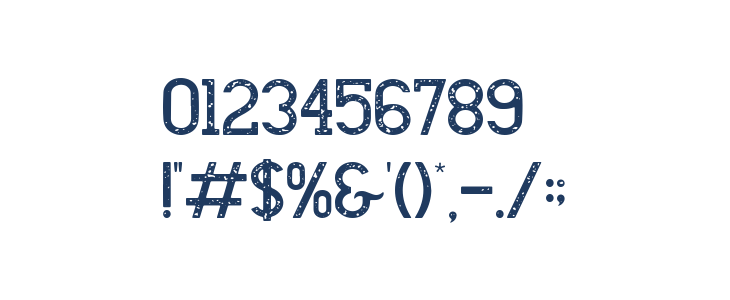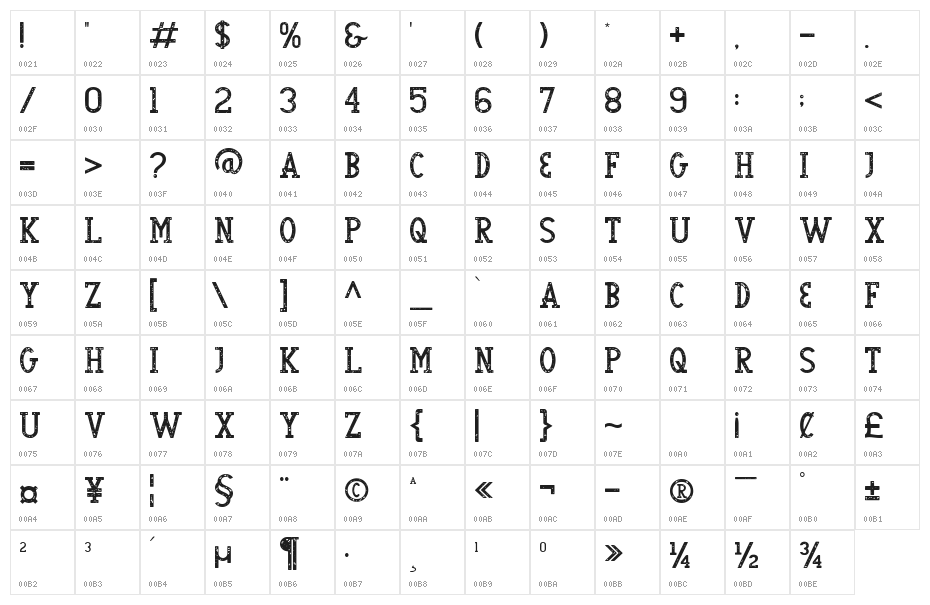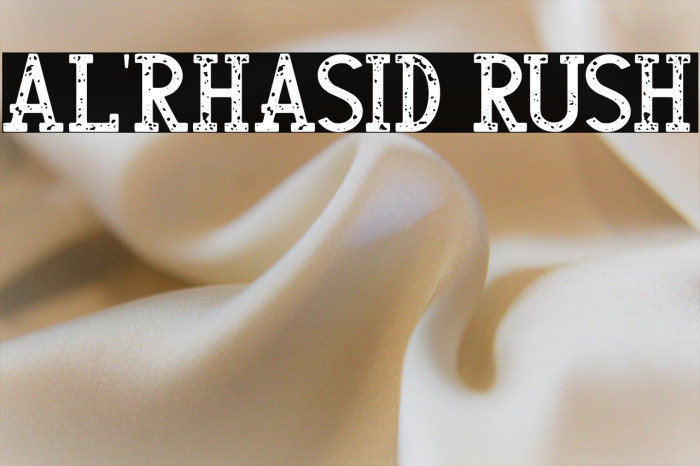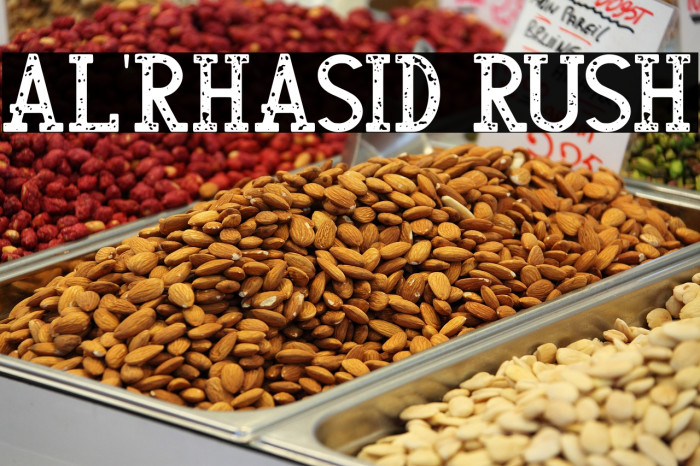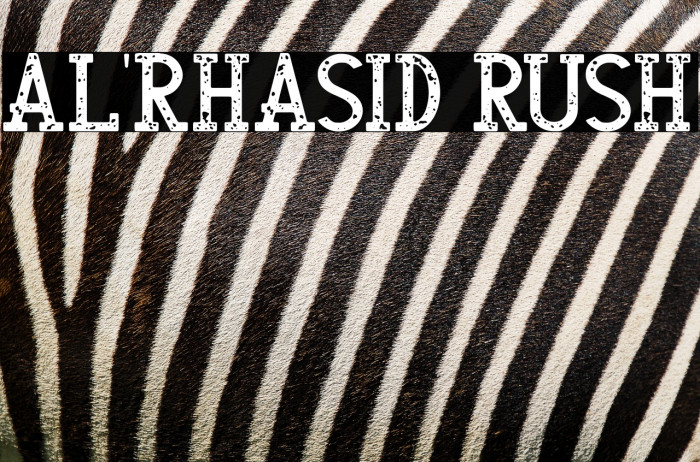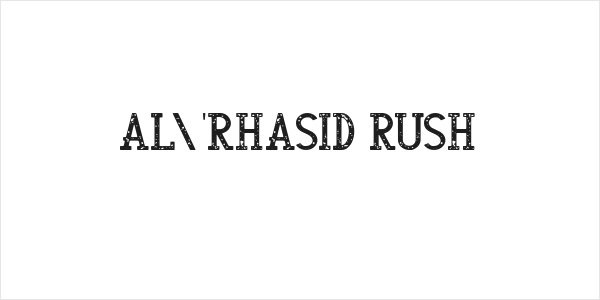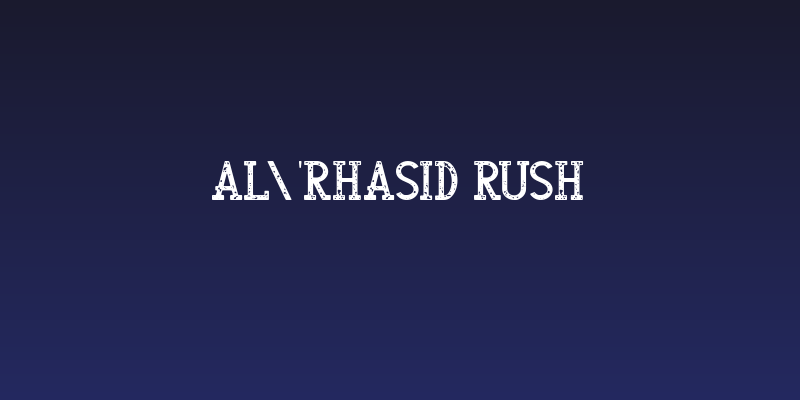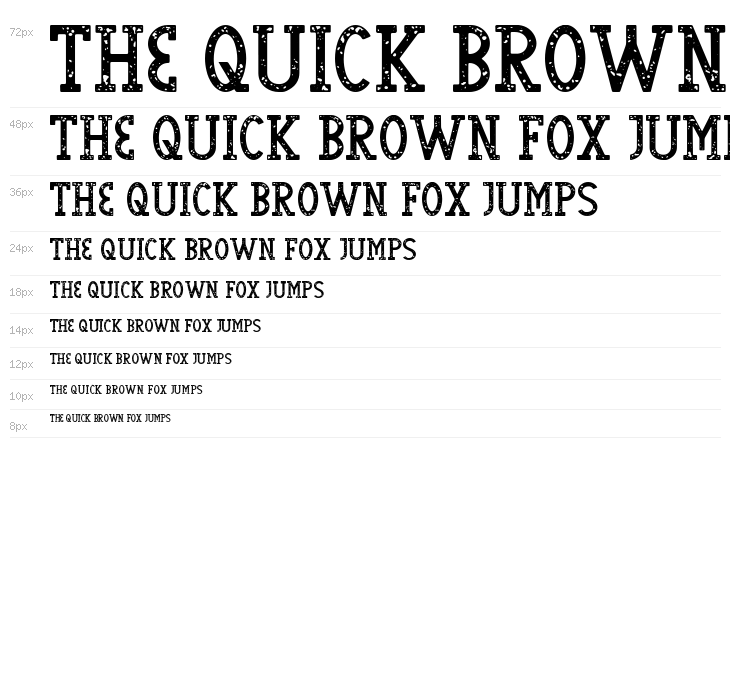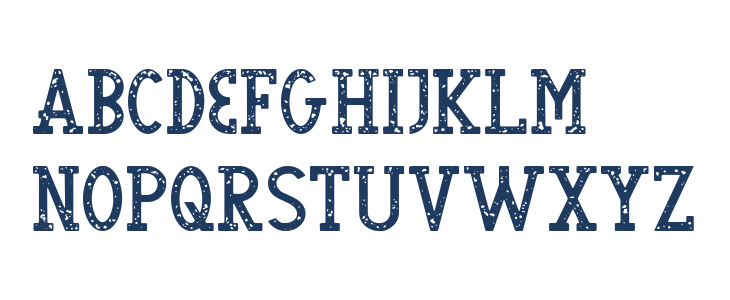
AL'RHASID RUSH Font
AL'RHASID RUSH Description
This font features a bold and decorative style with a distressed texture, giving it a vintage and rugged appearance. The uppercase letters are prominently designed with thick strokes and a consistent pattern of speckles and scratches, adding a unique character to each glyph. The numbers and special characters follow the same stylistic approach, ensuring uniformity across the typeface. The overall design is eye-catching and suitable for projects that require a strong visual impact.
Overall StyleVintage
Proposed ProjectsIdeal for posters, branding, vintage-themed designs, and any project needing a bold, eye-catching typeface.